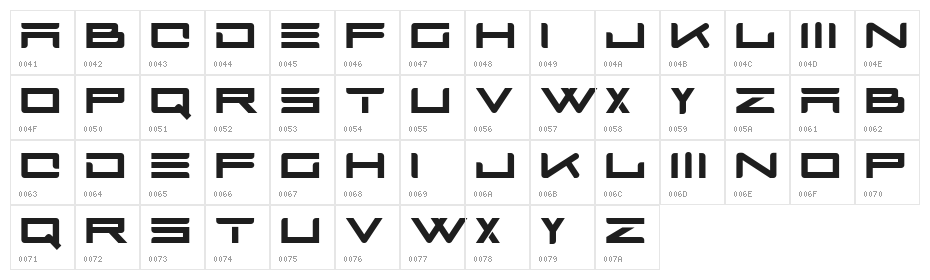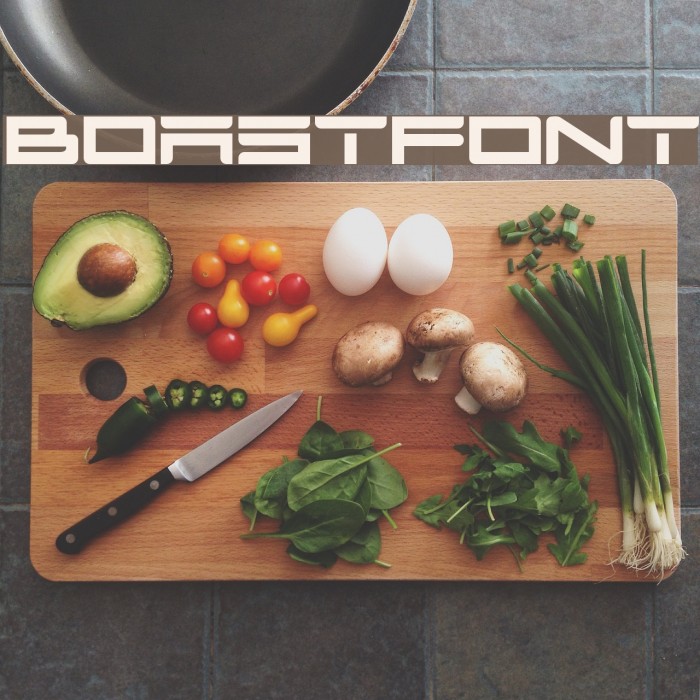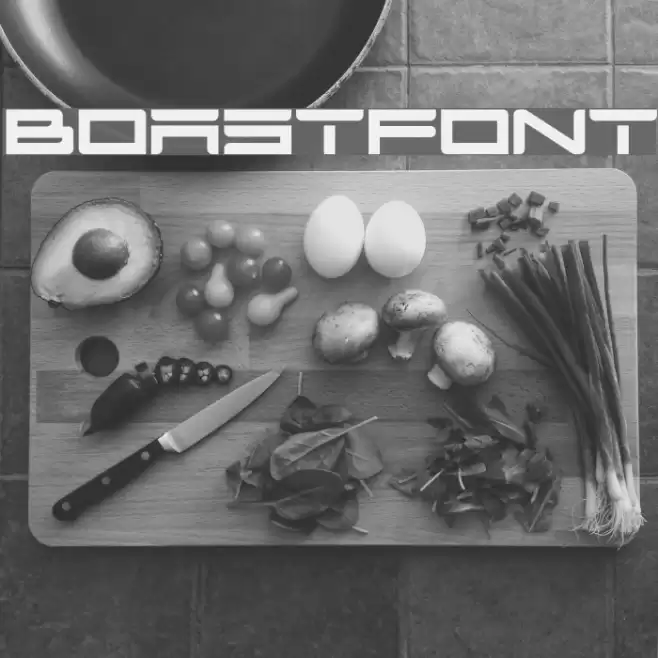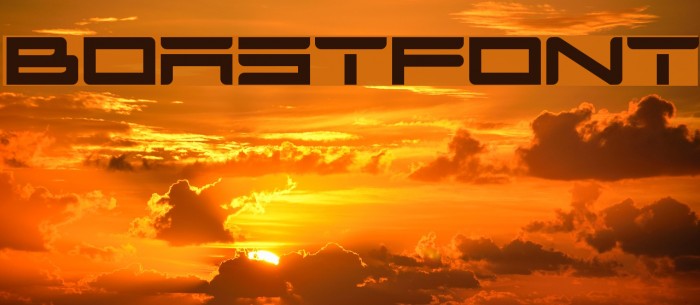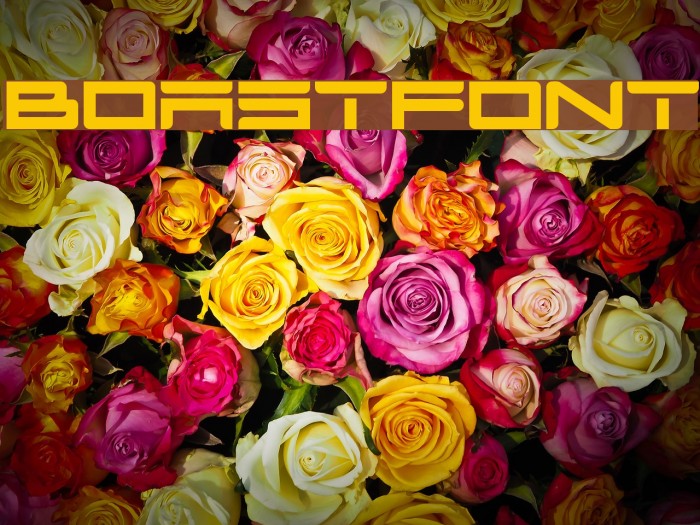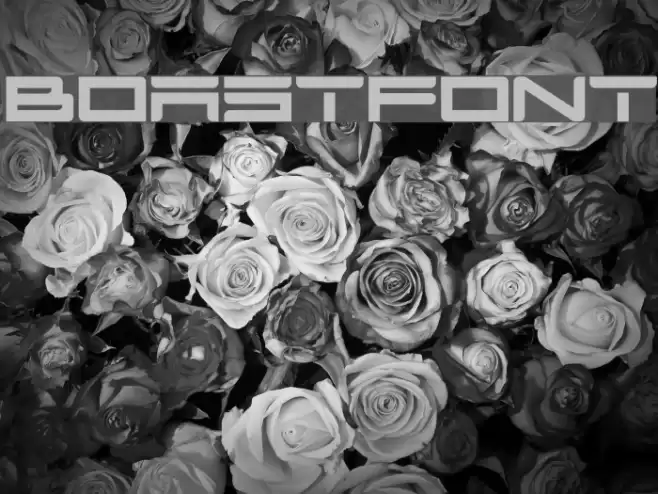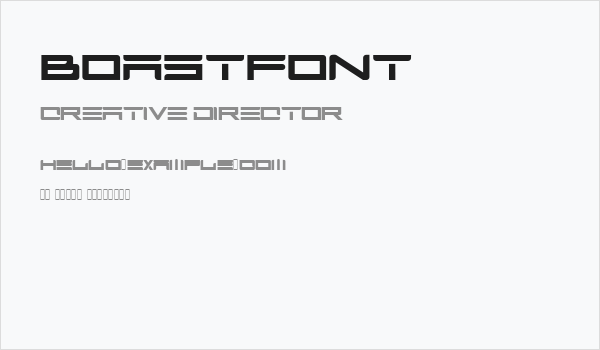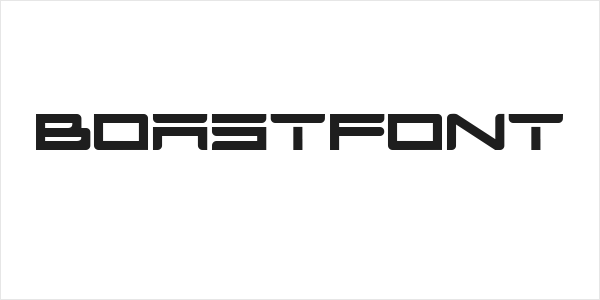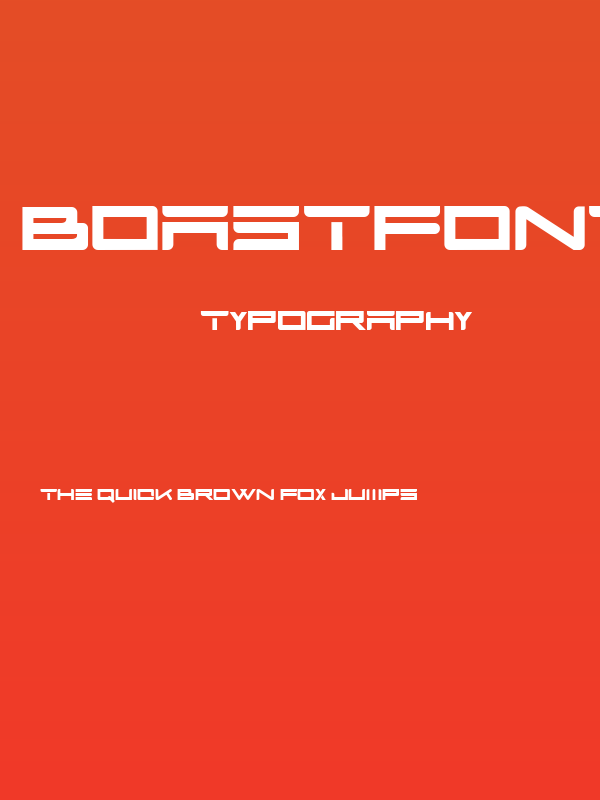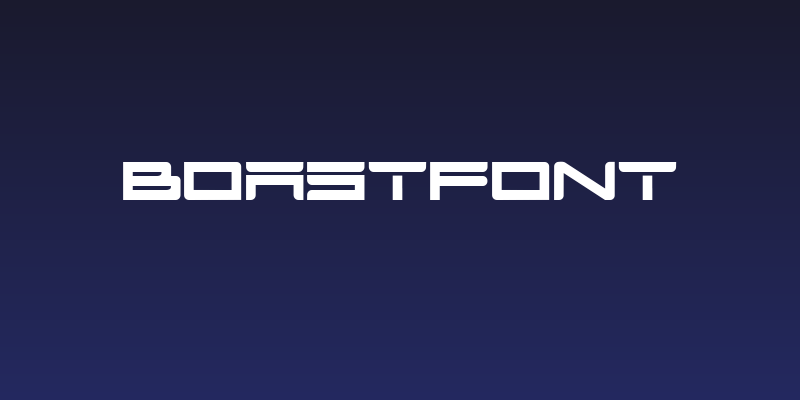
BOASTfont Font
BOASTfont Description
This font features a bold, futuristic design with geometric elements and sharp angles. The characters are constructed with a consistent stroke width, creating a uniform and cohesive appearance. The uppercase letters exhibit a strong presence with their block-like forms, while the lowercase letters maintain the same structural integrity. The font's style is reminiscent of digital or sci-fi themes, making it suitable for modern and tech-oriented projects. The spacing between characters is tight, enhancing the compact and solid look of the text. Overall, this font conveys a sense of innovation and forward-thinking design.
| Use Case | Logos, Headlines |
| Proposed Projects | Ideal for technology branding, sci-fi movie posters, video game titles, and digital media. |